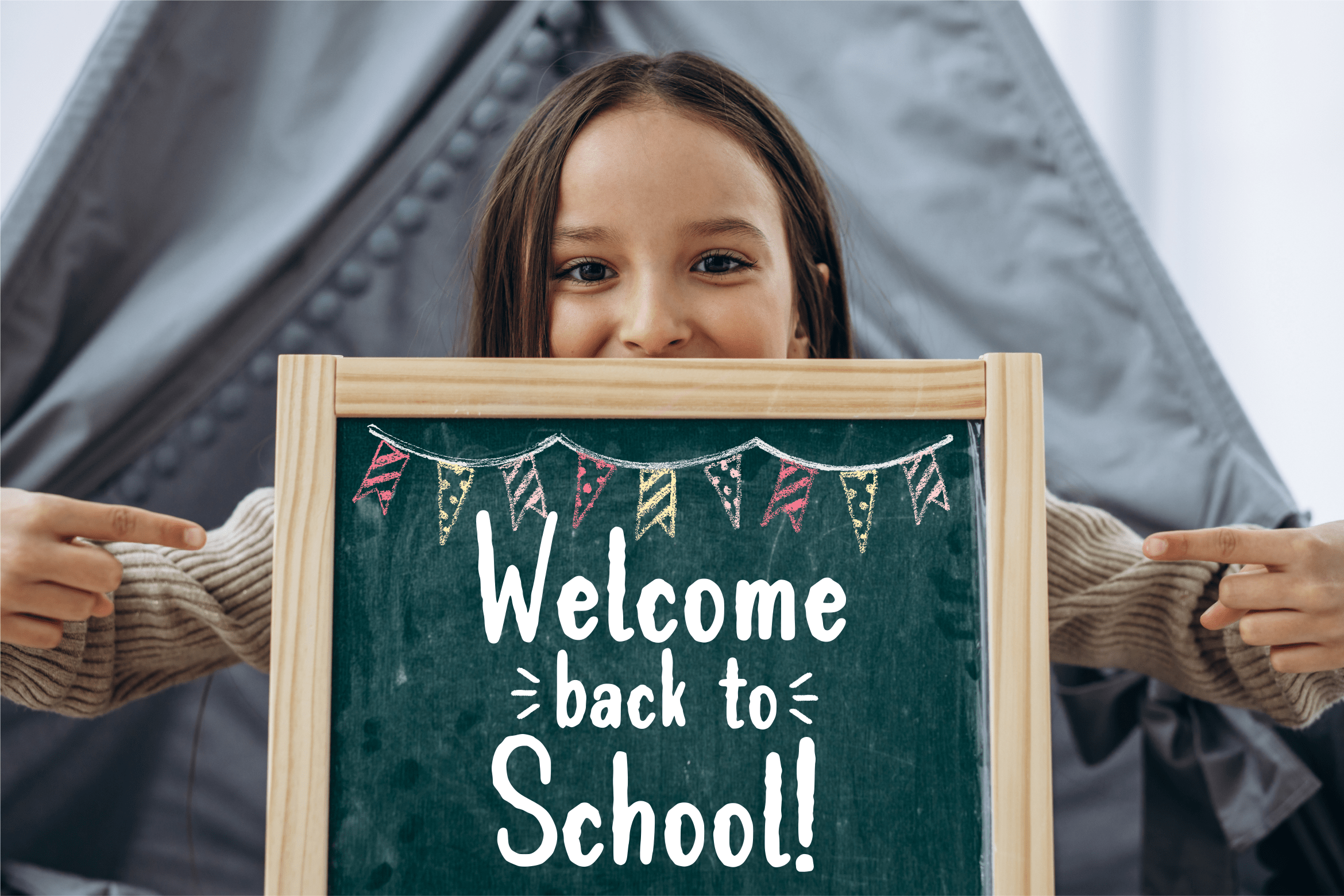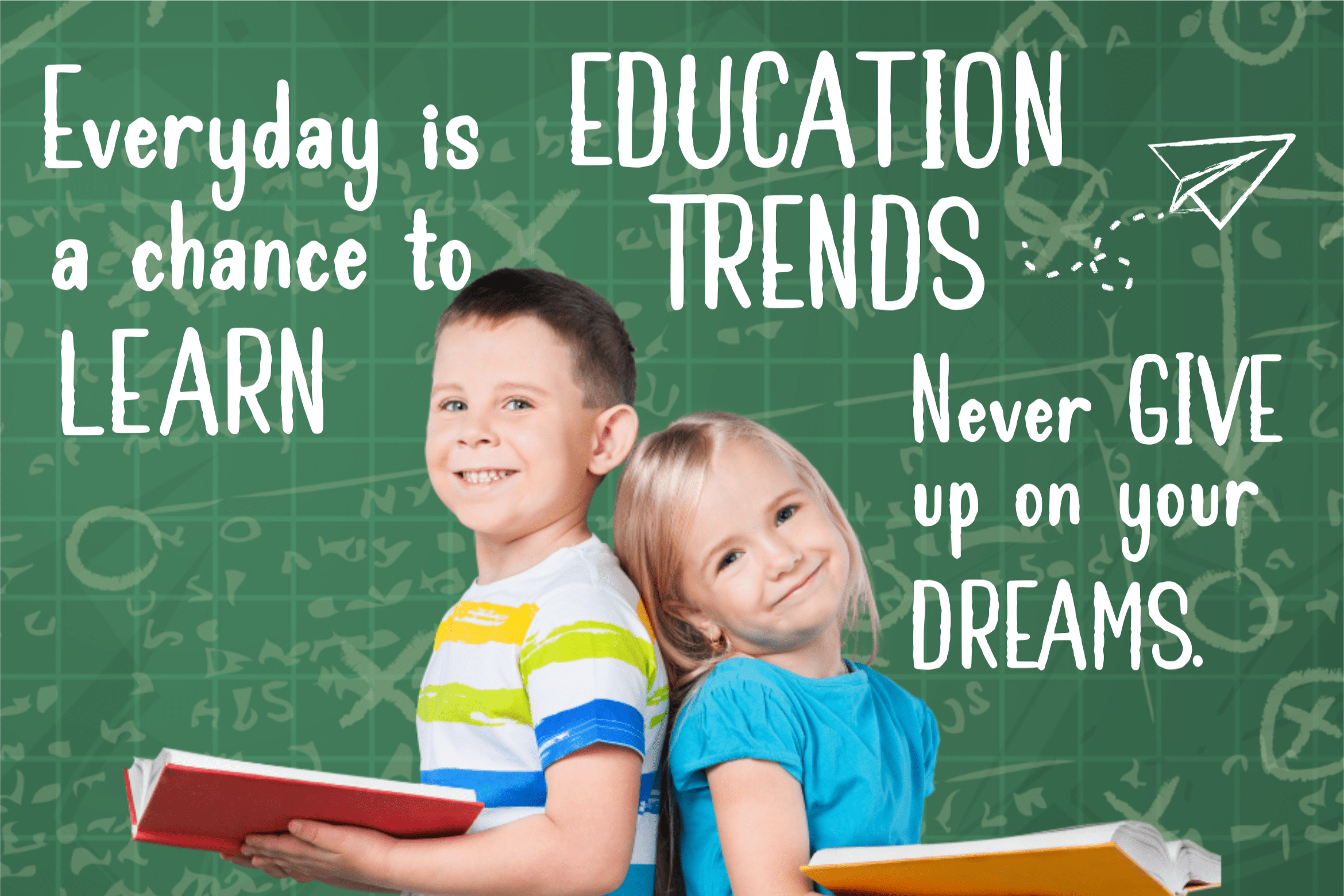
Yellowchalk Display Font
This is a beautiful handwritten display font perfect for product packaging, branding project, magazines, social media posts, weddings, or just used to express words above the background.